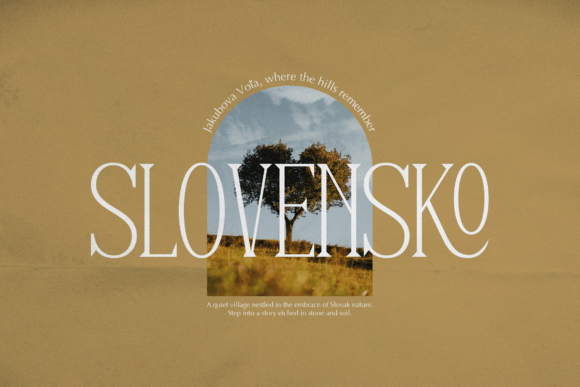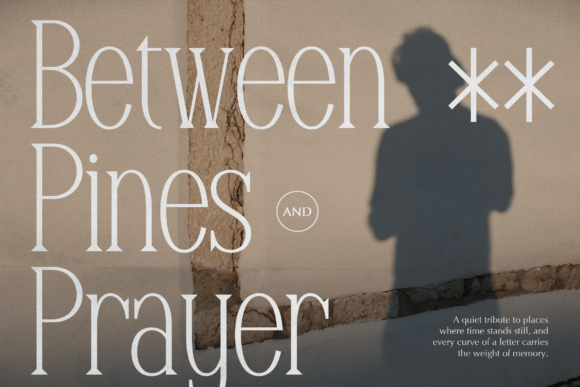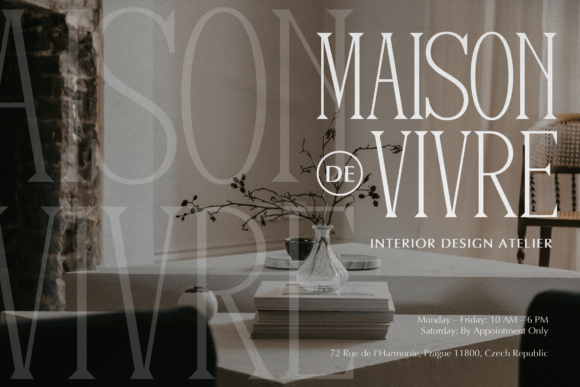
Introduction to Reftoliya Font
Have you ever found yourself stuck in the creative process, struggling to find the perfect font for your next design project? You’ve scrolled through countless options, but nothing seems to capture the essence of your vision. This is where the Reftoliya Font comes in – a modern serif font that’s about to revolutionize your creative process.
As a designer, you’re constantly on the lookout for high-quality design resources that can elevate your work. The Reftoliya Font is an excellent addition to your arsenal, offering a versatile and stylish solution for a wide range of projects. Whether you’re creating logos, branding materials, or product packaging, this font is sure to make a lasting impression.
Key Features of Reftoliya Font
- High-quality design resource with a unique and creative style, perfect for various projects.
- Perfect for designers and artists working on creative projects, including graphic design, digital art, and more.
Honest Review: Reftoliya Font
As a designer, I’m always on the lookout for high-quality design resources to elevate my creative projects. Recently, I stumbled upon the Reftoliya Font, and I must say, it’s a gem.
Here’s what I like about the Reftoliya Font:
- ✨ High-quality typography that’s perfect for headings and titles.
- ✨ Unique and creative style that adds a touch of sophistication to any design.
- ⚠️ Limited font styles and weights, which may not be suitable for complex designs.
- ⚠️ Not ideal for small text sizes, as the font may appear blurry.
Overall, I’m impressed with the Reftoliya Font. While it may not be perfect for every design project, it’s a valuable resource for any designer looking to add a touch of elegance and sophistication to their work.
How to Use Reftoliya Font
The Reftoliya Font is a high-quality design resource ideal for creative projects that require a unique and stylish touch. With its transparent background, this font can be easily integrated into various design platforms.
The Reftoliya Font is ideal for:
- Branding and logo design
- Graphic design and visual arts
- Web design and digital media